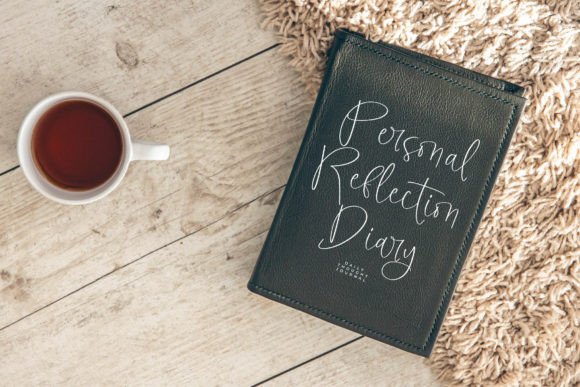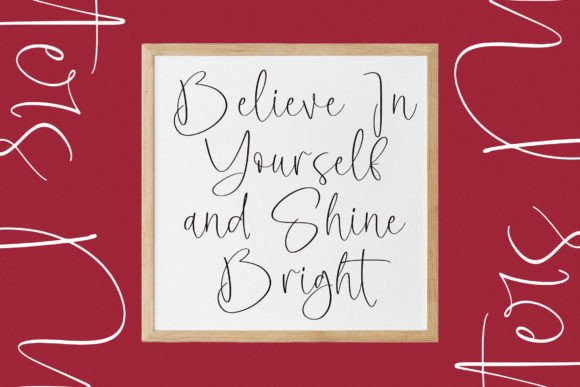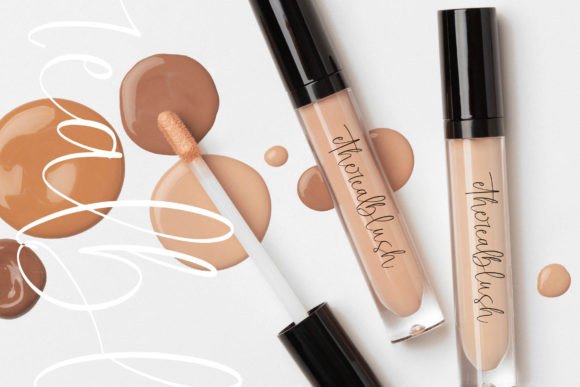
Introduction to Hanters Maroon Font
As a designer, there’s nothing quite like the rush of finding the perfect font to bring a creative project to life. You’ve spent hours pouring over design resources, searching for that elusive combination of style and sophistication. And then, it happens – you stumble upon a font that makes your heart skip a beat, like Hanters Maroon Font. This stunning handwritten script font exudes elegance and charm, with fluid strokes and a natural flow that’s simply irresistible.
Whether you’re working on a high-quality branding project or a simple social media graphic, Hanters Maroon Font is the perfect addition to your design arsenal. Its versatility and charm make it a valuable asset for any designer, allowing you to add a personal touch to your work with ease. And the best part? This beautiful font is available for free download, making it a must-have resource for any creative project.
With its transparent background and effortless style, Hanters Maroon Font is the perfect choice for designers who want to add a touch of warmth and creativity to their designs. So why settle for a generic font when you can have a high-quality, unique design element that sets your work apart? Discover the beauty of Hanters Maroon Font today and take your designs to the next level.
Key Features of Hanters Maroon Font
- Unique, hand-drawn style with a transparent background, allowing for versatility in design applications.
- Features a modern, maroon-colored aesthetic with intricate details, making it perfect for branding, packaging, and editorial designs.
Honest Review: Hanters Maroon Font
As a designer, I’m always on the lookout for high-quality design resources to elevate my creative projects. The Hanters Maroon Font caught my eye with its elegant, sophisticated look. I decided to put it to the test and see how it performs in real-world design.
- ✨ Elegant, sophisticated design aesthetic that’s perfect for luxury brands or high-end creative projects.
- ✨ Comes in a variety of weights, from light to bold, giving designers plenty of flexibility.
- ✨ Works beautifully on a transparent background, adding an extra layer of sophistication to designs.
- ⚠️ Limited language support, which may be a concern for designers working on international projects.
- ⚠️ Not ideal for projects that require a more playful or casual tone, as it’s a bit too formal.
Overall, I’m impressed with the Hanters Maroon Font’s quality and versatility. While it may not be the best fit for every project, it’s definitely a valuable addition to any designer’s arsenal. With its elegant design and free download, it’s a must-have resource for any serious designer.
Hanters Maroon Font is a high-quality design resource ideal for creative projects requiring a unique touch. With its transparent background, this font can be easily integrated into various design platforms.
Experiment with different font sizes and styles to create visually appealing designs. Combine Hanters Maroon Font with other design elements to add depth and interest to your project.
Hanters Maroon Font is suitable for a variety of creative projects, including logos, branding materials, and marketing materials. You can also use it for personal projects, such as invitations and social media graphics.